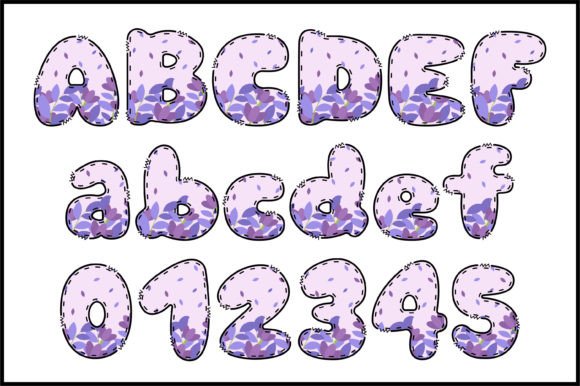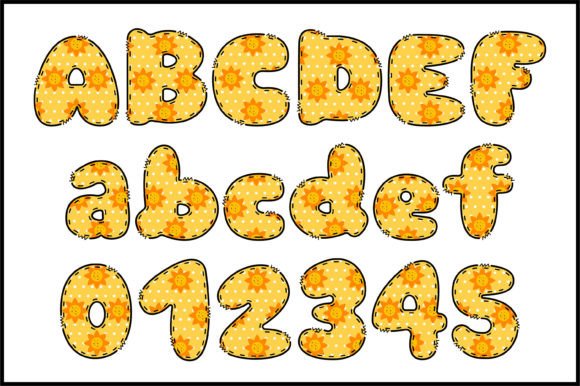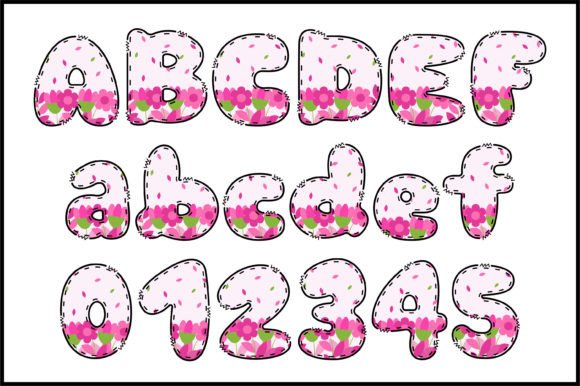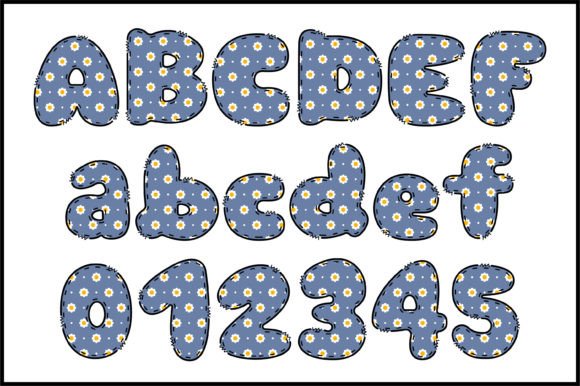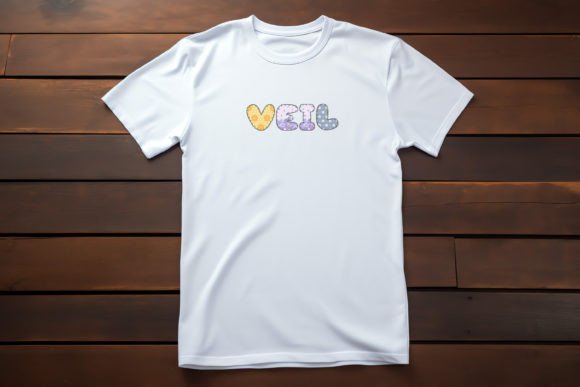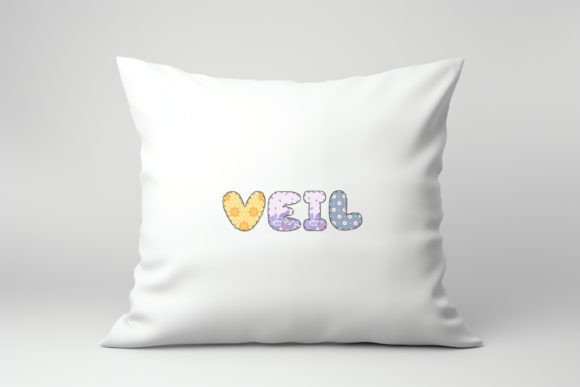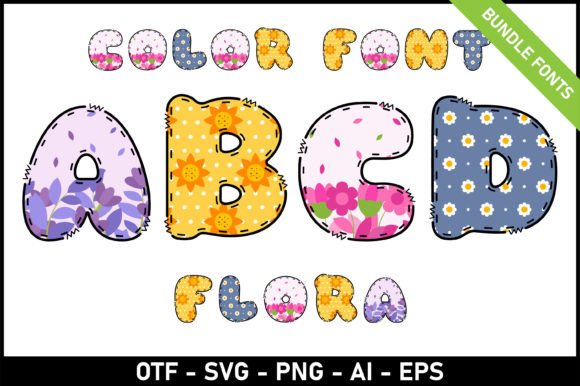
Discover the Whimsical World of Flora Bundle Font
Are you a designer, crafter, or artist looking for a font that can add a touch of playfulness and creativity to your projects? Look no further than the Flora Bundle Font! This delightful font bundle is perfect for anyone who wants to convey a sense of fun and artistic flair in their designs. In this article, we’ll explore the features and benefits of the Flora Bundle Font, and how it can elevate your designs to the next level.
What is the Flora Bundle Font?
The Flora Bundle Font is a collection of carefully crafted fonts that are designed to bring a sense of whimsy and playfulness to your designs. The bundle includes a range of font styles, each with its own unique characteristics and charm. These fonts are often used in designs that aim to convey a playful or artistic feel, such as children’s books, posters, invitations, greeting cards, and more.
Perfect for Children’s Books
One of the standout features of the Flora Bundle Font is its suitability for children’s books. The font is whimsical, colorful, and easy to read, creating an engaging reading experience for young audiences. The playful and imaginative nature of the font makes it perfect for storybooks, picture books, and early readers. With the Flora Bundle Font, you can create a visually appealing and engaging book that will capture the hearts of children and parents alike.
Key Features of the Flora Bundle Font
- Whimsical and Playful Design: The Flora Bundle Font features a unique and playful design that is sure to add a touch of personality to your projects.
- Easy to Read: The font is carefully crafted to be easy to read, making it perfect for children’s books, educational materials, and other designs where legibility is key.
- Colorful and Vibrant: The font comes in a range of colors and styles, allowing you to add a pop of color and creativity to your designs.
- Versatile: The Flora Bundle Font can be used for a wide range of design projects, from posters and invitations to greeting cards and more.
The Flora Bundle Font offers a range of benefits for designers and crafters, including:
- Time-Saving: With the Flora Bundle Font, you can save time and effort by having access to a range of pre-designed fonts that can be used for multiple projects.
- Consistency: The font bundle ensures consistency across your designs, making it perfect for branding and identity projects.
- Creativity: The Flora Bundle Font offers a range of creative possibilities, allowing you to experiment with different styles and designs.
How to Use the Flora Bundle Font
Here are a few tips and inspiration ideas for using the Flora Bundle Font:
- Pair with Illustrations: Pair the Flora Bundle Font with illustrations or graphics to create a visually appealing design.
- Experiment with Colors: Experiment with different colors and styles to add a pop of personality to your designs.
- Use for Seasonal Designs: Use the Flora Bundle Font for seasonal designs, such as Christmas cards or Easter invitations.